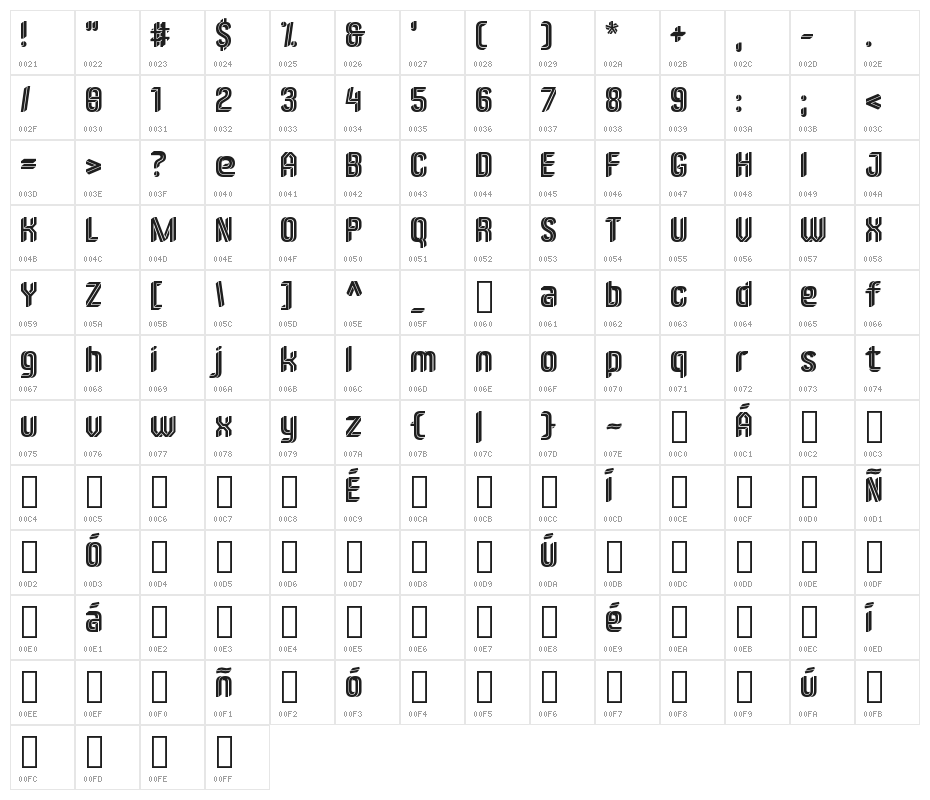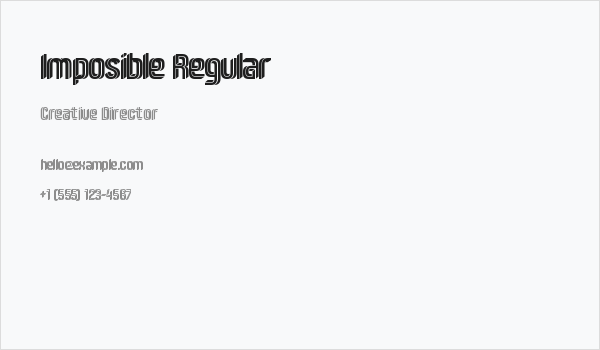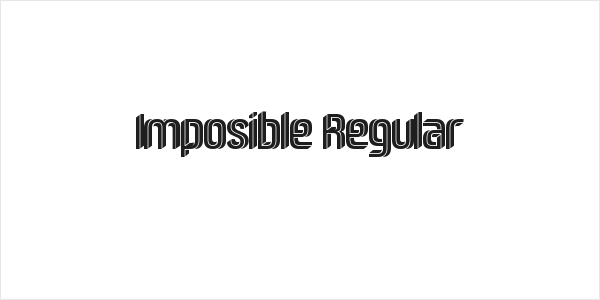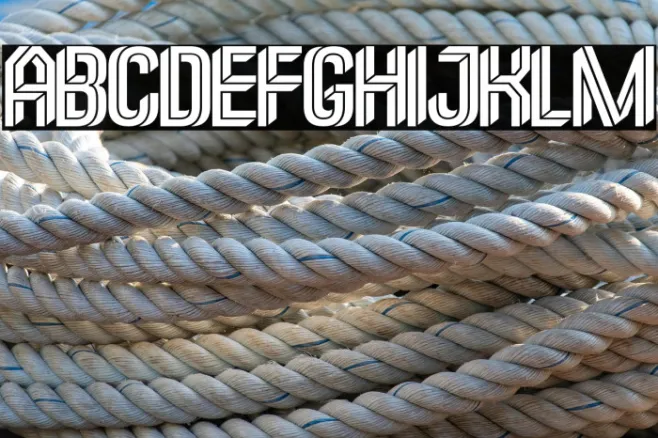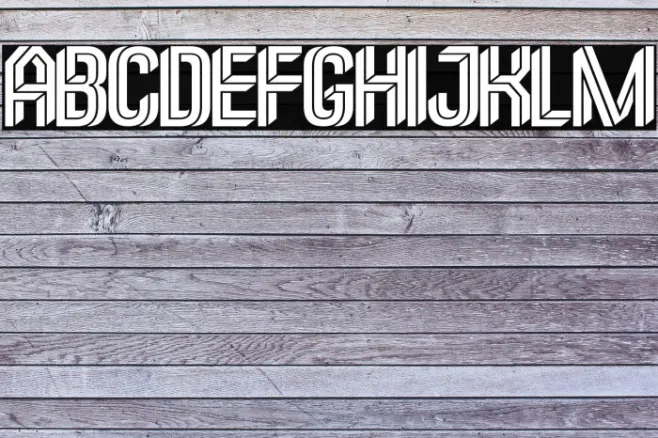
Imposible Regular Font
Imposible Regular Description
This font features a bold, geometric design with a three-dimensional effect created by overlapping lines and shadows. The uppercase and lowercase letters maintain a consistent style, characterized by sharp angles and clean lines. The numerals and special characters follow the same aesthetic, ensuring a cohesive look across all elements. The font's unique structure gives it a modern and futuristic appearance, making it stand out in any design. Its boldness and distinct style make it suitable for attention-grabbing headlines and creative projects.
| Proposed Projects | Ideal for posters, logos, branding, and any design that requires a modern, eye-catching font. |